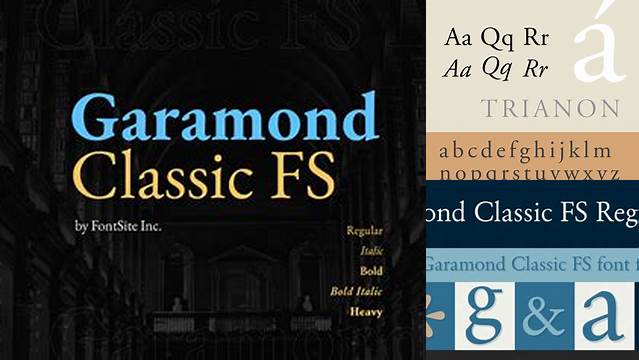
Hey everyone! If you're on the hunt for a classic, elegant typeface, you've probably come across the Garamond font. And if you're looking for the Garamond Classic FS version, well, you're in luck! This article will guide you through everything you need to know about the Garamond Classic FS font free download, including where to find it, what it's best used for, and some tips to make the most of this beautiful font. So, let's dive in, shall we?
Exploring the Rich History of the Garamond Font Family
Let's journey back in time, shall we? The Garamond font family has a rich history, tracing back to the 16th century. It all began with Claude Garamond, a French punch-cutter, and typographer. He's considered one of the most important figures in the history of typography. His letterforms were initially inspired by the Venetian typeface, and he refined these designs to create a more readable and elegant style. This font was quickly embraced and used extensively. The Garamond font was favored by printers and publishers for its readability and beauty, being used in a variety of documents, including books, pamphlets, and official documents. This widespread adoption solidified its reputation as a classic font. Several variations and adaptations of the original Garamond emerged over the centuries. These variations, created by different designers, sought to capture the essence of the original while providing different nuances. Each variation keeps the original's spirit of elegance and readability but introduces a unique personality. Some of the modern versions, like the Garamond Classic FS, strive to maintain the historical integrity of Garamond's original design while offering the advantages of modern digital typography. The Garamond Classic FS is one of these modern interpretations, reflecting the enduring appeal of the Garamond style in contemporary design. The history of the Garamond is intertwined with the development of printing and the spread of knowledge. It has played an essential role in shaping the visual landscape of communication. The choice of a Garamond font, whether it's the original version or a more contemporary adaptation, connects designers with a rich cultural heritage and historical context. It’s a nod to the past that continues to influence and inform contemporary design choices.
Understanding the Key Characteristics of Garamond Classic FS
So, what makes the Garamond Classic FS font stand out from the crowd? The key is its timeless elegance and distinctive characteristics. First, let's talk about its serifs. The serifs, which are the small strokes at the ends of the letters, are a hallmark of the Garamond style. They add a touch of sophistication and enhance readability, especially in printed materials. The font also has a moderate x-height, meaning the height of the lowercase letters is relatively balanced, contributing to a comfortable reading experience. The design features a delicate balance between thick and thin strokes, which gives it a sense of refinement and visual appeal. It has a slightly slanted stress, adding to its graceful appearance. This angle helps create a more dynamic feel. The typeface maintains its legibility even at smaller sizes, making it suitable for body text in books and documents. The proportions are finely balanced. This ensures a consistent and harmonious look across all letterforms. These features together give the Garamond Classic FS its unique personality, embodying both classic elegance and modern appeal. The characters' curves and overall design create a sense of movement and flow, which is pleasing to the eye. This font is a versatile choice for design projects, providing both functionality and visual interest. The combination of historical roots and contemporary execution makes the Garamond Classic FS font a design classic. Choosing this font immediately enhances the overall aesthetic of the design, adding a touch of elegance and sophistication.
Garamond Classic FS vs. Other Font Choices: A Comparison
Okay, let's get a little comparative, shall we? When choosing a font, the Garamond Classic FS often goes head-to-head with other popular typefaces. Let's see how it stacks up against some well-known competitors like Times New Roman, Arial, and Georgia. First up: Times New Roman. Both are serif fonts, meaning they have those small strokes at the ends of the letters, which are great for readability in long-form text. However, Garamond has a more elegant and refined appearance compared to Times New Roman. Times New Roman may sometimes look a bit more utilitarian. Next is Arial. Arial is a sans-serif font. It lacks the serifs, which gives it a cleaner, more modern appearance. Garamond, with its serifs, offers a more traditional and sophisticated feel. It is ideal for projects where a touch of elegance is desired. Then there's Georgia. Georgia is another serif font, and it is designed for readability on screens. However, Garamond is often considered to have a more artistic and historical feel. Georgia tends to be more practical. Garamond provides an aesthetic appeal that fits well in print and design projects. Each of these fonts has its own strengths and weaknesses, so the best choice depends on the specific needs of the project. For projects that require a classic, elegant look, Garamond Classic FS is an excellent choice. If simplicity and modern looks are more important, a sans-serif font might be better. And if you need to prioritize readability, Georgia may be the better choice.
Best Uses for Garamond Classic FS Font in Design Projects
Now, let's talk about where you can really unleash the power of the Garamond Classic FS font. This versatile typeface is an excellent choice for several design projects. Books and novels are a perfect fit. Its high legibility and elegant appearance make it ideal for setting long blocks of text. Magazines and editorial layouts are another prime area for Garamond. Its refined look enhances the overall aesthetic of the content. For branding and identity, it can add a touch of sophistication to logos, stationery, and other brand assets. Because it is easy to read, it ensures consistency across all brand communication materials. Websites can also benefit from Garamond. Its classic design gives a premium feel to website content, while its good readability enhances user experience. In advertisements, Garamond can be used for both headlines and body copy, communicating messages effectively and attractively. When designing invitations and announcements, the font can add an elegant touch to special events such as weddings and formal gatherings. For academic papers and reports, its classic appeal gives an air of seriousness and professionalism to the documents. It is also a good choice for creating beautiful quotes. Its timeless look makes your message stand out and is visually appealing. Considering these applications, it is obvious that the best uses for the Garamond Classic FS font are in situations where clarity, elegance, and sophistication are essential. This is the type of font that can lift your design.
Customizing Your Garamond Classic FS Font: Tips and Tricks
Alright, let's get creative! Customizing your Garamond Classic FS font is a great way to make it work perfectly for your specific needs. Let’s explore some tips and tricks to get you started: The first one is the size and weight. Experiment with different sizes and weights to find the perfect balance for your project. A slightly bolder weight might improve readability in smaller sizes. Another one is the kerning and tracking. Fine-tune the kerning (the space between specific pairs of letters) and tracking (the overall space between all letters) to improve visual harmony and legibility. You can use various design software to adjust these settings. Color and contrast are also important. Choose colors that complement the font and enhance readability. Using a high-contrast combination of font and background will improve the appearance of the text. Consider using italics. Italics can add emphasis or create a visual separation between the text. It can also create the mood of the content. Creating custom ligatures, which are combinations of letters, can add a unique touch. This can be particularly useful in logos or branding materials. Remember to consider the context of your design. The customization choices you make should align with the overall design goals of your project. Always prioritize readability. It is essential for usability. By using these tips and tricks, you can customize your Garamond Classic FS font to align with the project's creative vision. These customizations will enhance your design projects.
Garamond Classic FS and Web Design: Making It Work Online
Let's bring Garamond online! Using the Garamond Classic FS font in web design can add a touch of elegance and sophistication to your website. However, it requires special attention to ensure optimal performance and readability across different devices. Using web fonts ensures that your website's text renders correctly. Here's how to make it work: Make sure the font is web-optimized. This means that the font files are in a format that is compatible with web browsers, such as WOFF or WOFF2. You can use Google Fonts or Adobe Fonts to access web-optimized versions of the Garamond Classic FS font. Use a reliable font loading strategy. This is especially important to prevent text flashing or other display issues when the font is loading. You can implement a technique such as font-display: swap to make the text visible even while the font is loading. Test the font on multiple devices and browsers. Ensure that the font displays properly on various screen sizes, operating systems, and browsers. This is essential to provide a consistent user experience. Use the correct font sizes and line heights to ensure readability. Adjust the font sizes and line heights to ensure that the text is easy to read on all devices. Consider using responsive design techniques. This enables your website to adapt to different screen sizes. When using the font, consider its impact on your website's performance. Large font files can slow down your website's loading speed. To minimize the impact, use optimized font formats and compress the files. Also, carefully select the font weights and styles you need to avoid loading unnecessary data. Following these guidelines will ensure that the Garamond Classic FS font looks and works great online. By optimizing your website with best practices, you can maximize the user experience and improve the visual appeal.